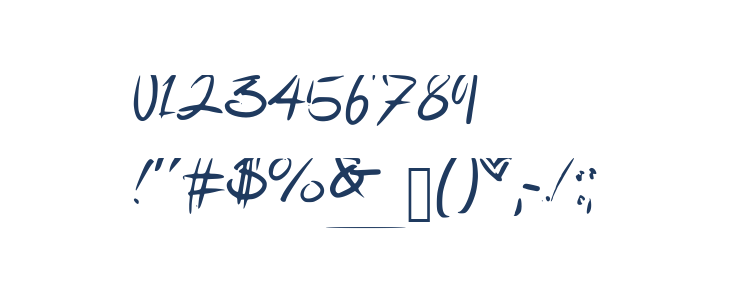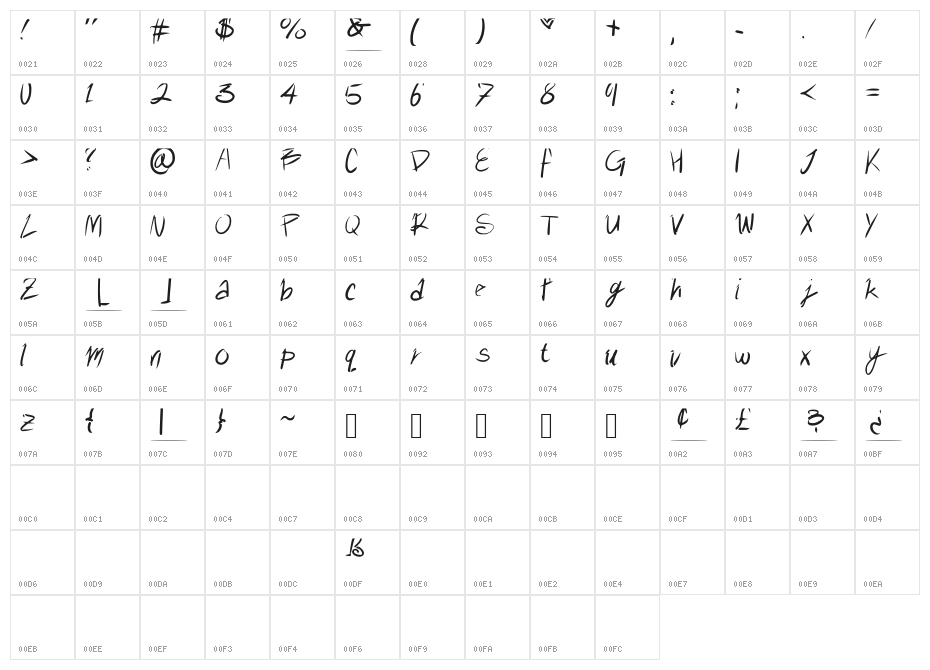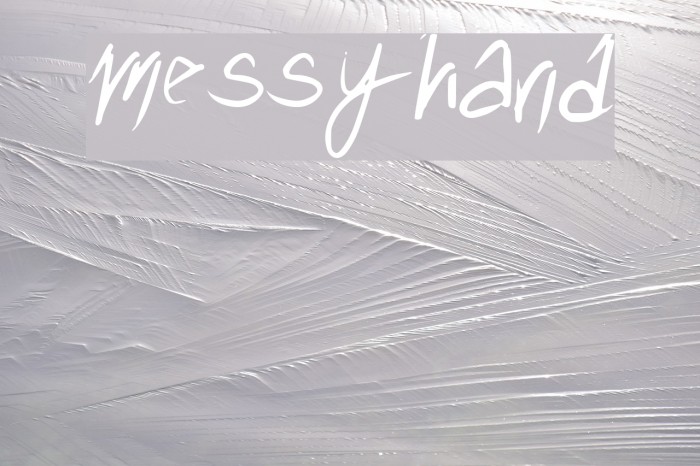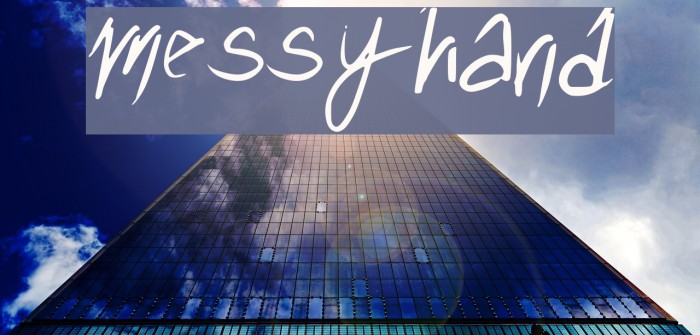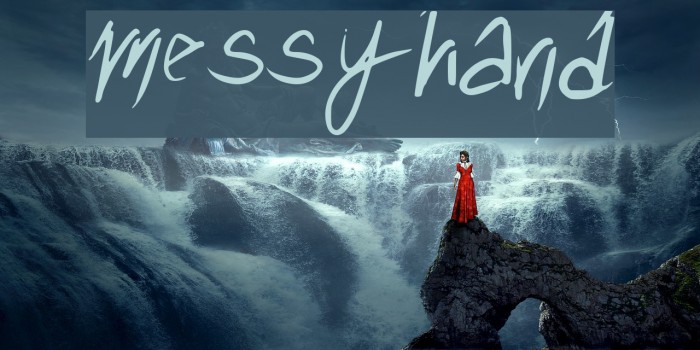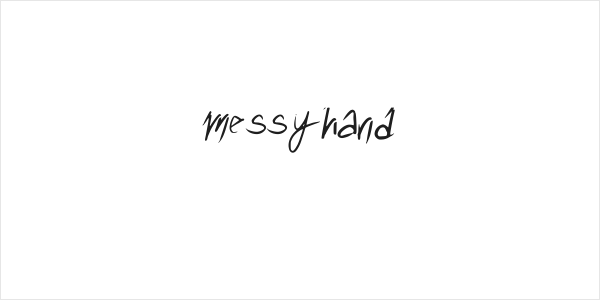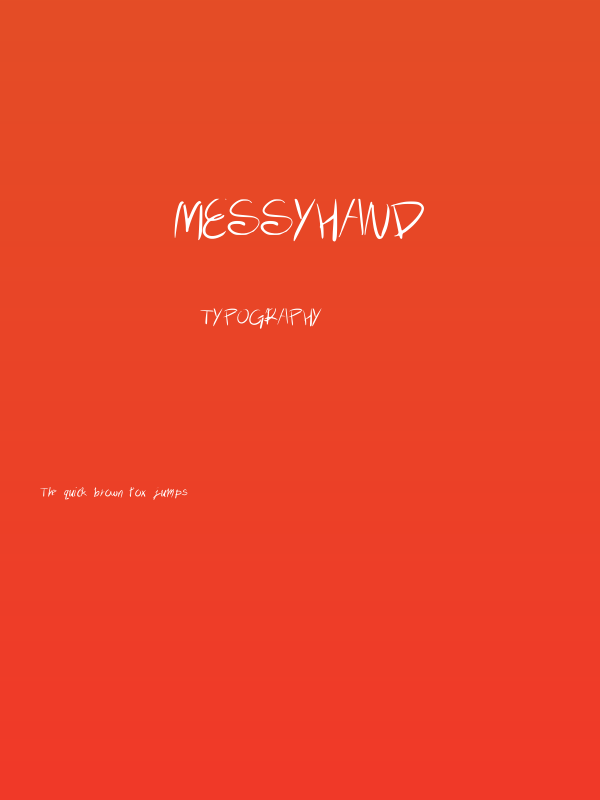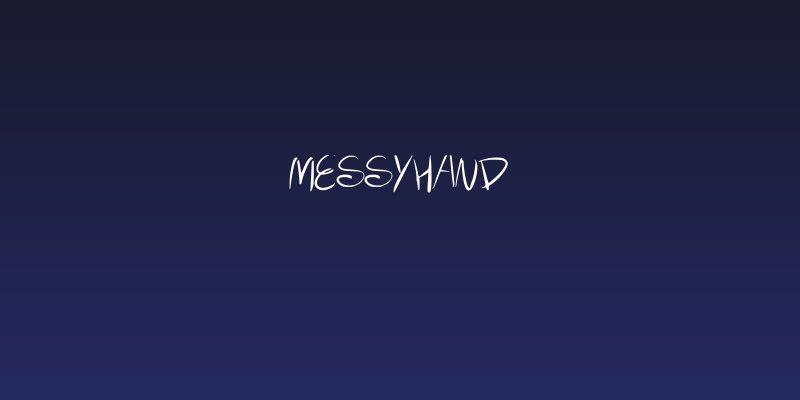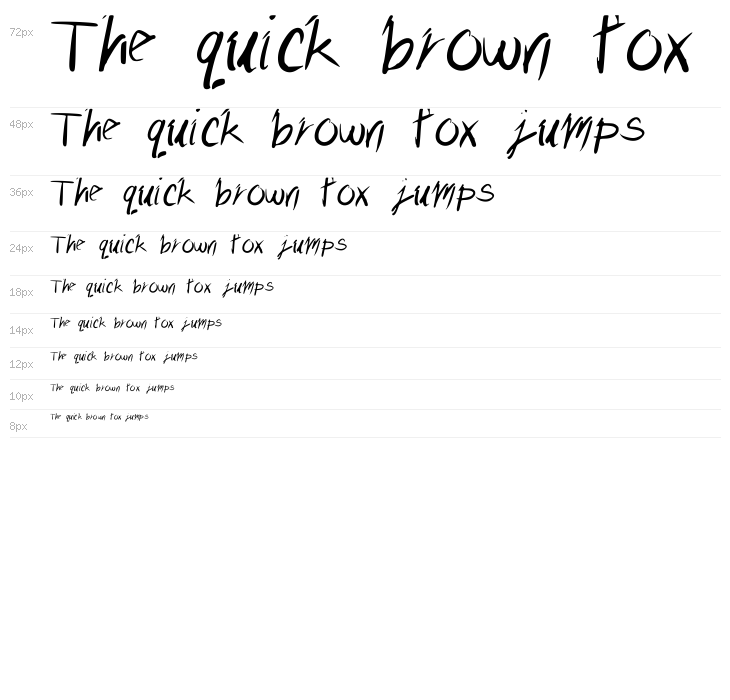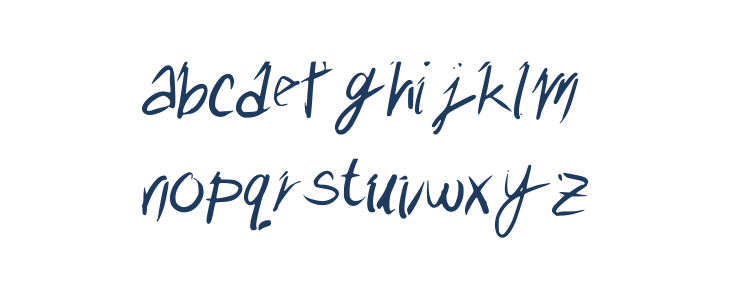
messyhand Font
messyhand Description
This font exudes a dynamic and expressive style, characterized by its handwritten appearance. The strokes are bold and varied, giving it a lively and energetic feel. Each character is unique, with playful loops and curves that suggest a sense of spontaneity and creativity. The uppercase letters are tall and slightly slanted, while the lowercase letters maintain a consistent flow, enhancing the font's overall informal and artistic vibe. The numbers and special characters follow the same expressive style, making this font suitable for projects that require a personal touch.